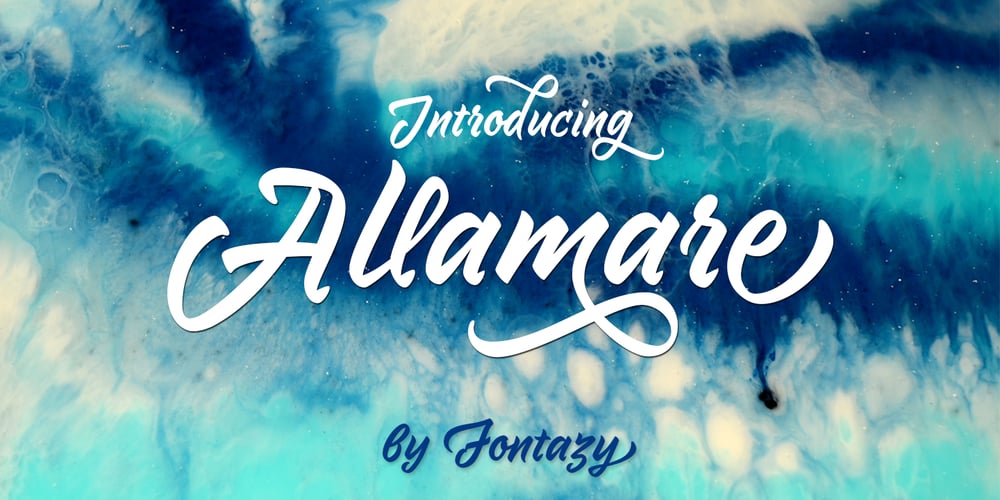
Allamare Font Family was designed by Zakhar Yaschin and published by FontaZY. Allamare contains 1 styles and family package options. Allamare is non connected handlettered brush script with number of alternatives, such as: Titling alternates, stylistic Variants, Initial and Final forms, some Ligatures and Underscored Titling letters with swashes of 3 different lenght. Allamare script is good for any type of advertising, package design, poster lettering and any kind of invitations and greeting cards. Allamare Script is multilingual, it covers almost all Latin-based languages and also contains Cyrillic.